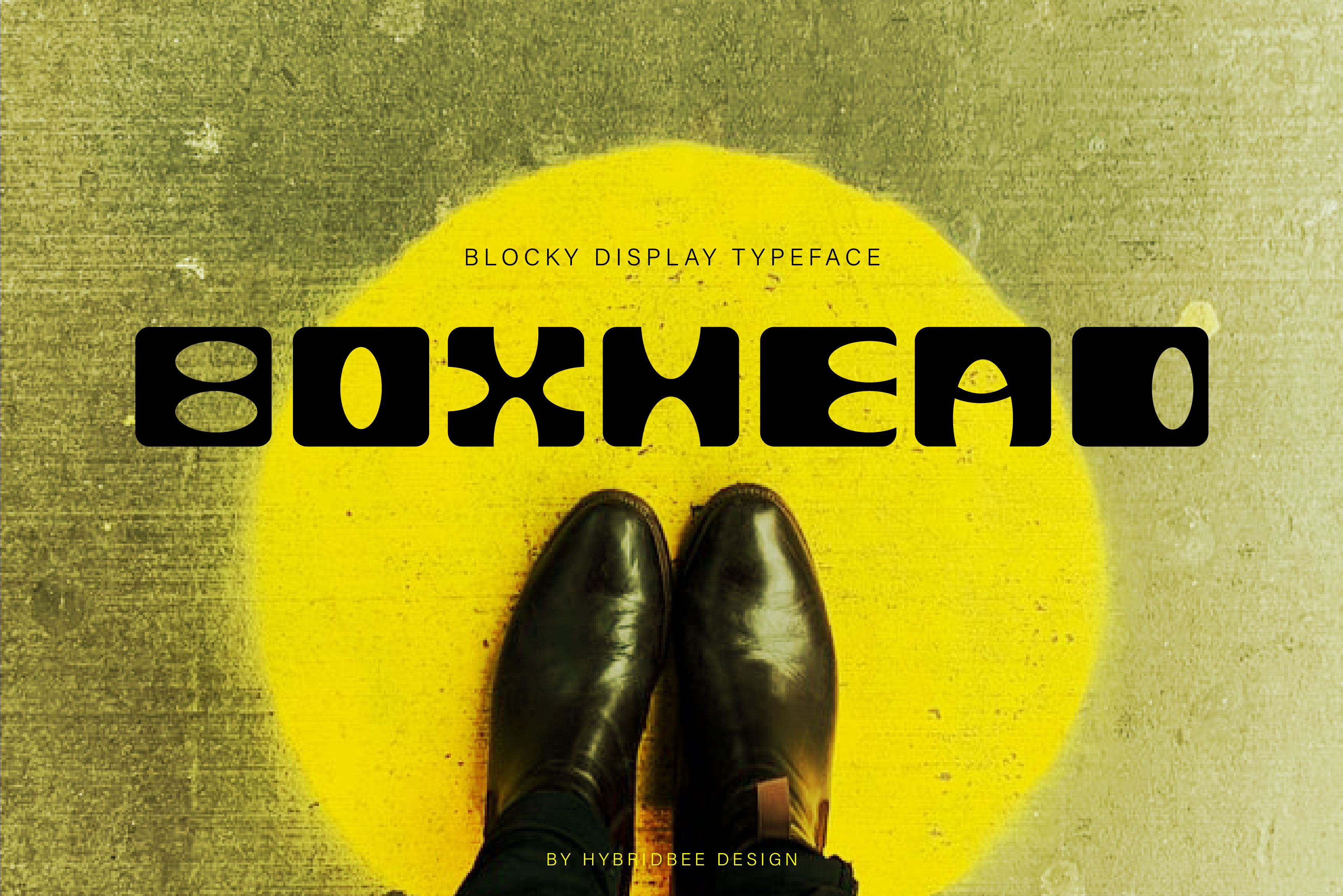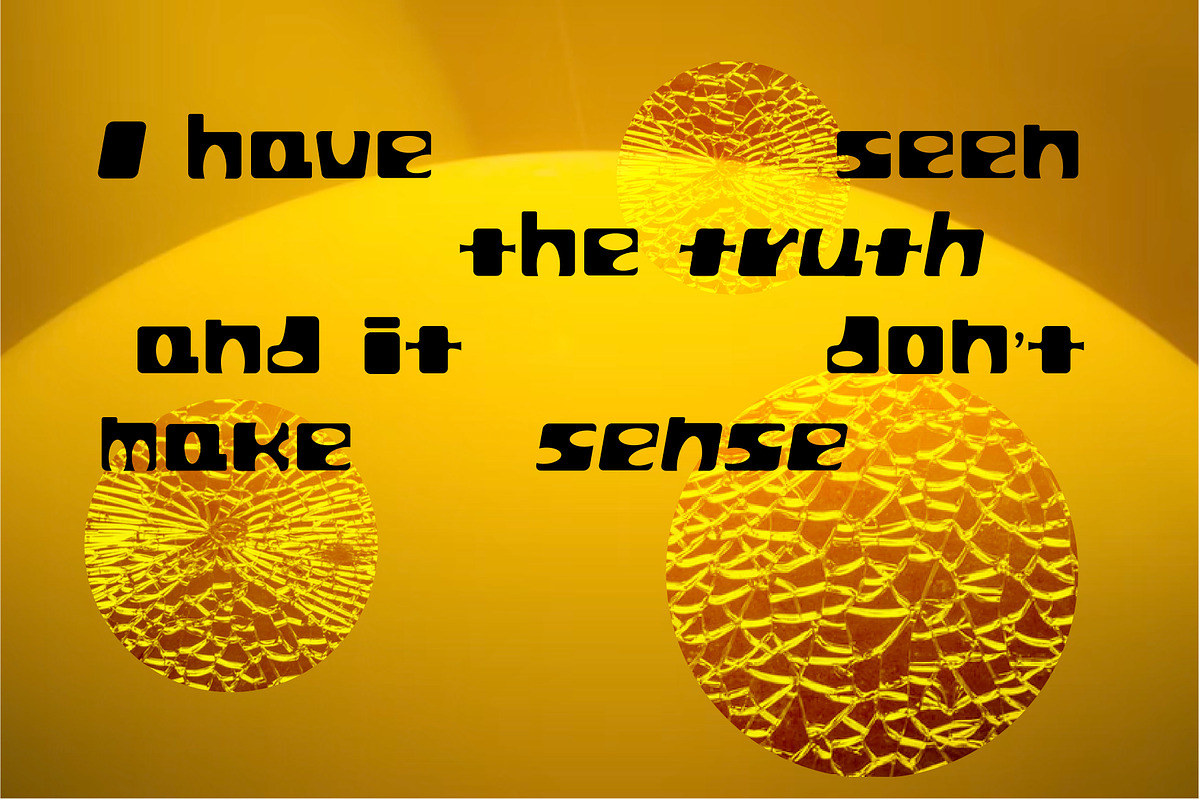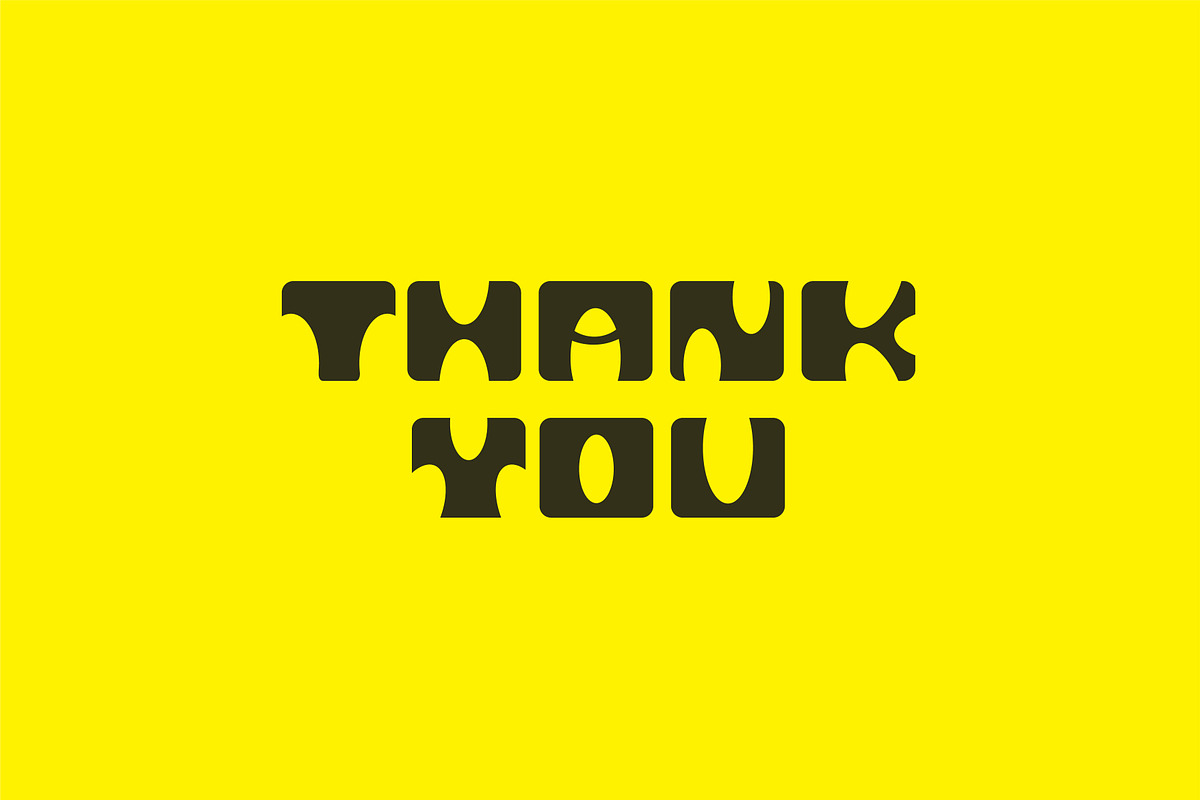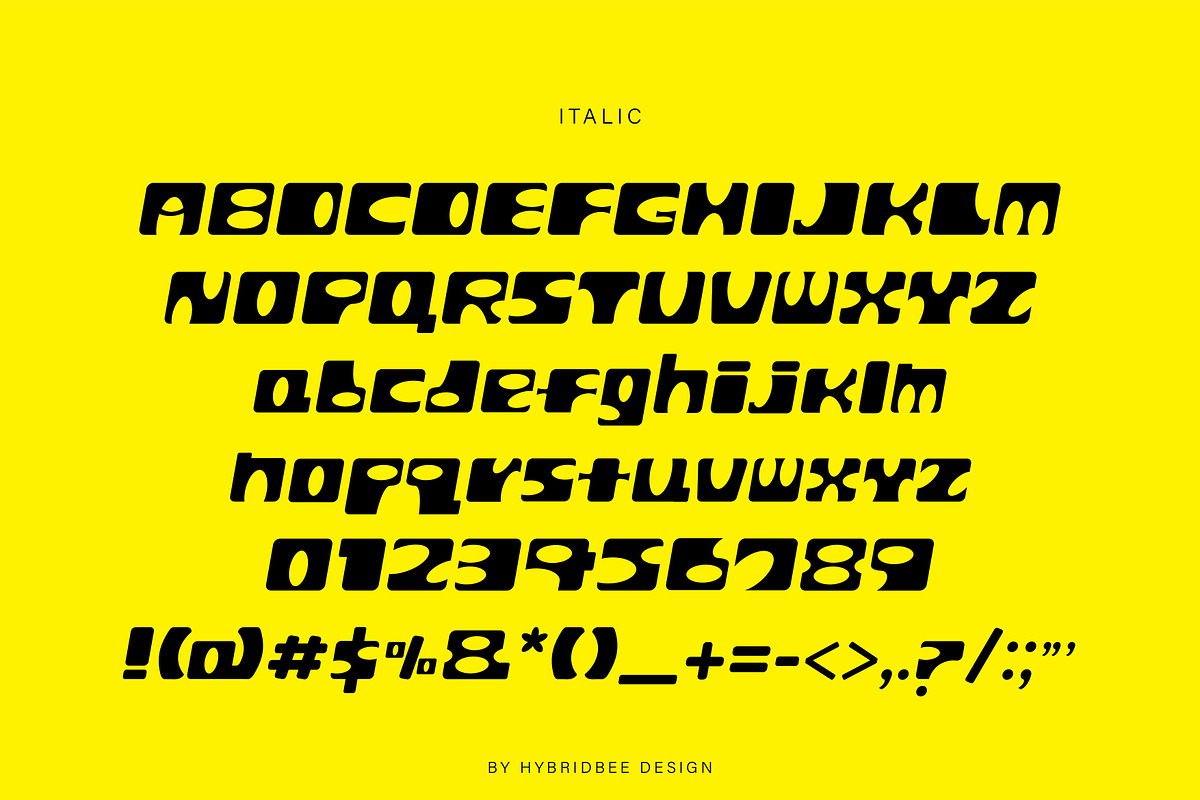
BOXHEAD - Display Font
BOXHEAD – Display Font
Boxhead is a bold display font with a modern, unique, and artistic edge. It includes uppercase letters, lowercase letters, numerals, and some punctuations in regular and italic. It has a blocky and fun style and can be used to create posters, headlines, branding, packaging, logo, web design, etc.